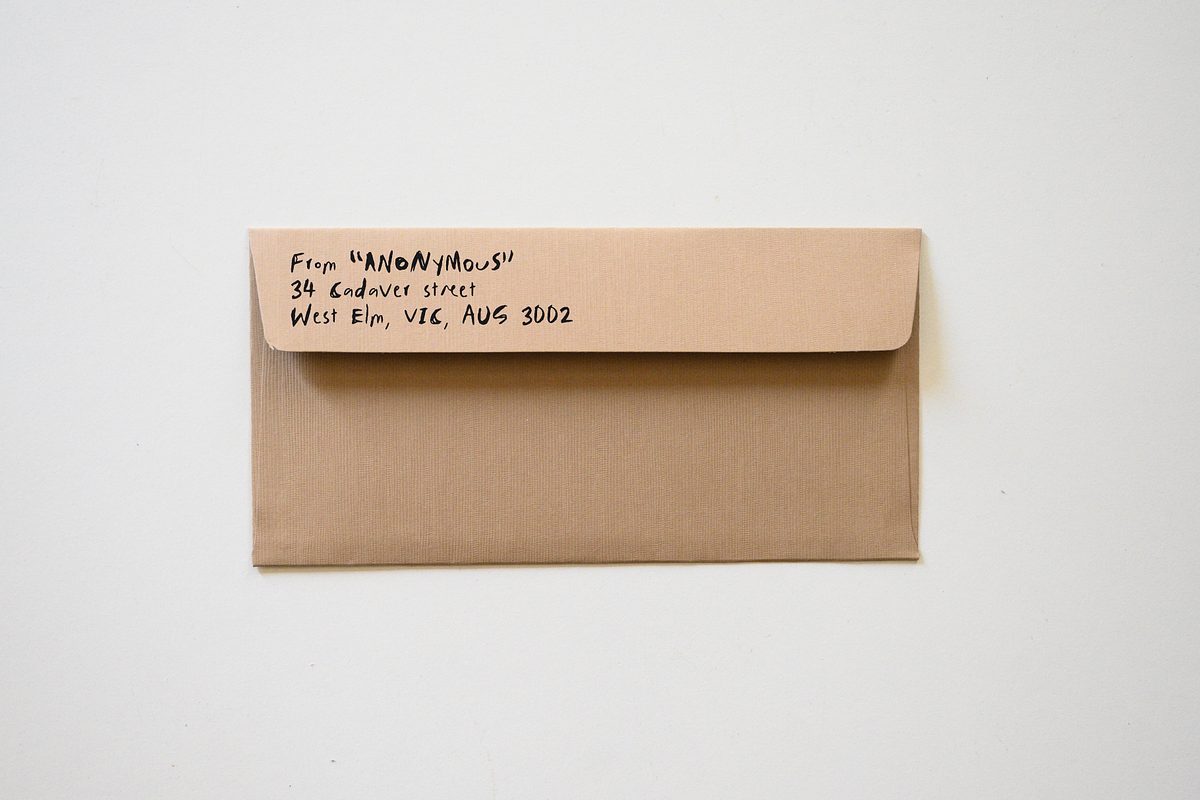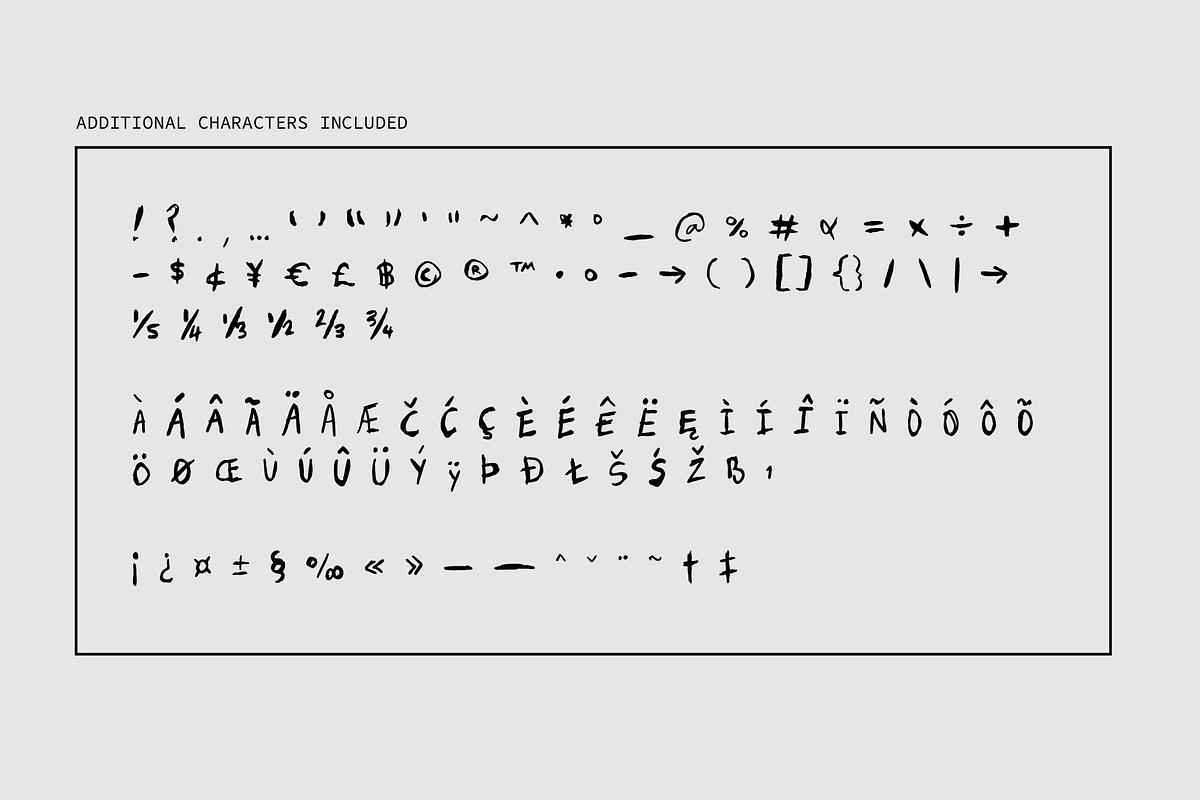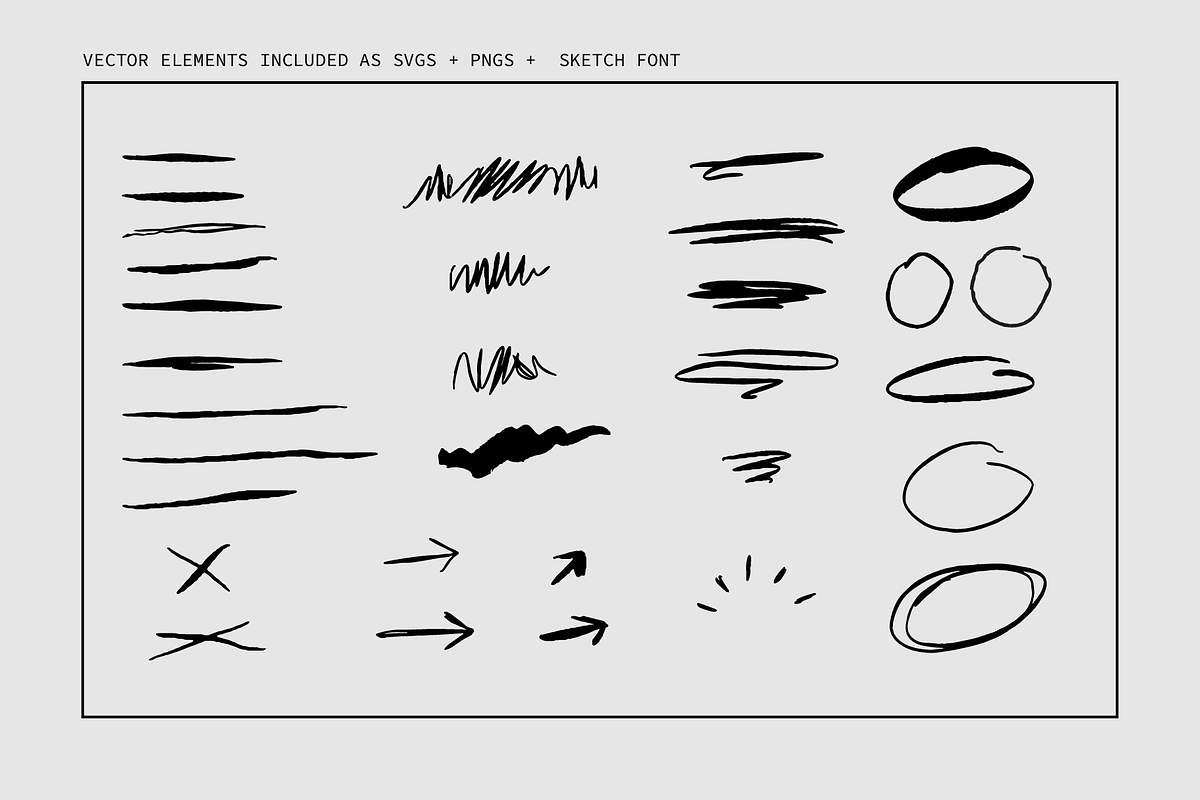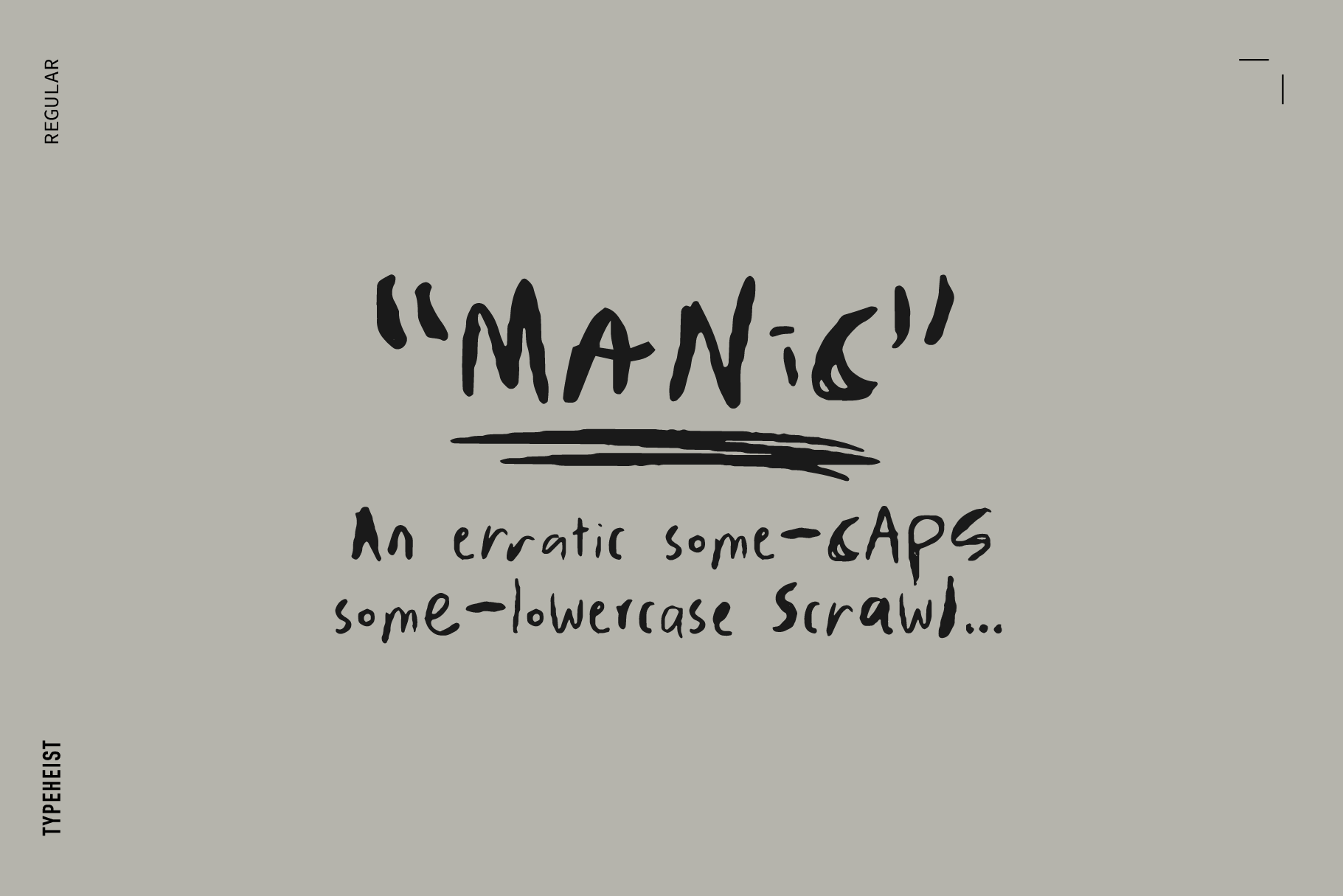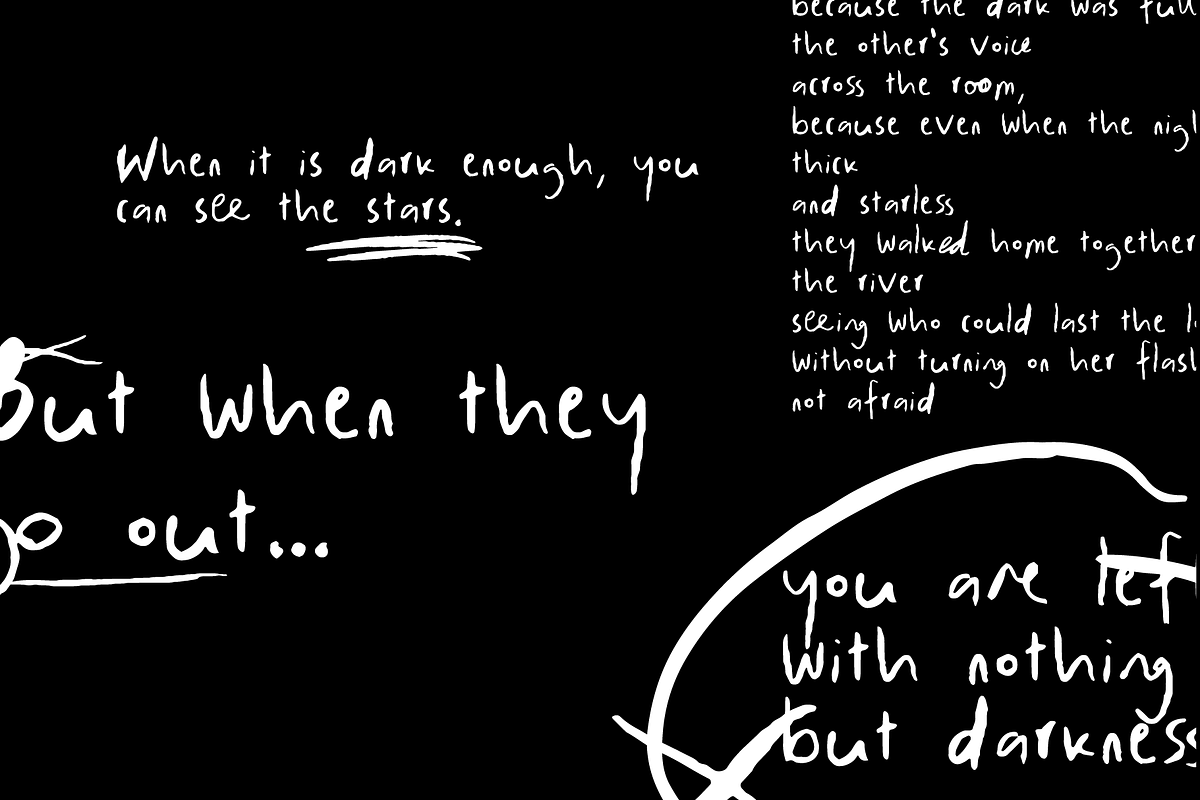
MANIC Erratic Handwritten Font
An erratic some-caps some-lowercase scrawl... aka handwriting font. Messy and realistic. Hand-drawn and transformed into a font for all your manic typography needs.
Three 'Alternate' font styles means there are a total of four variations for each A-Z letter and number, with each individual font style producing a slightly different (but always manic) overall look.
Manic contains 100+ ligatures including double letter combos for both uppercase and lowercase characters, so you can make whatever you are creating as wild and unique as you need ;)
- MANIC Regular (inc all alternative glyphs)
- MANIC Alternates 1
- MANIC Alternates 2
- MANIC Alternates 3
- MANIC Sketches
- 100+ ligatures